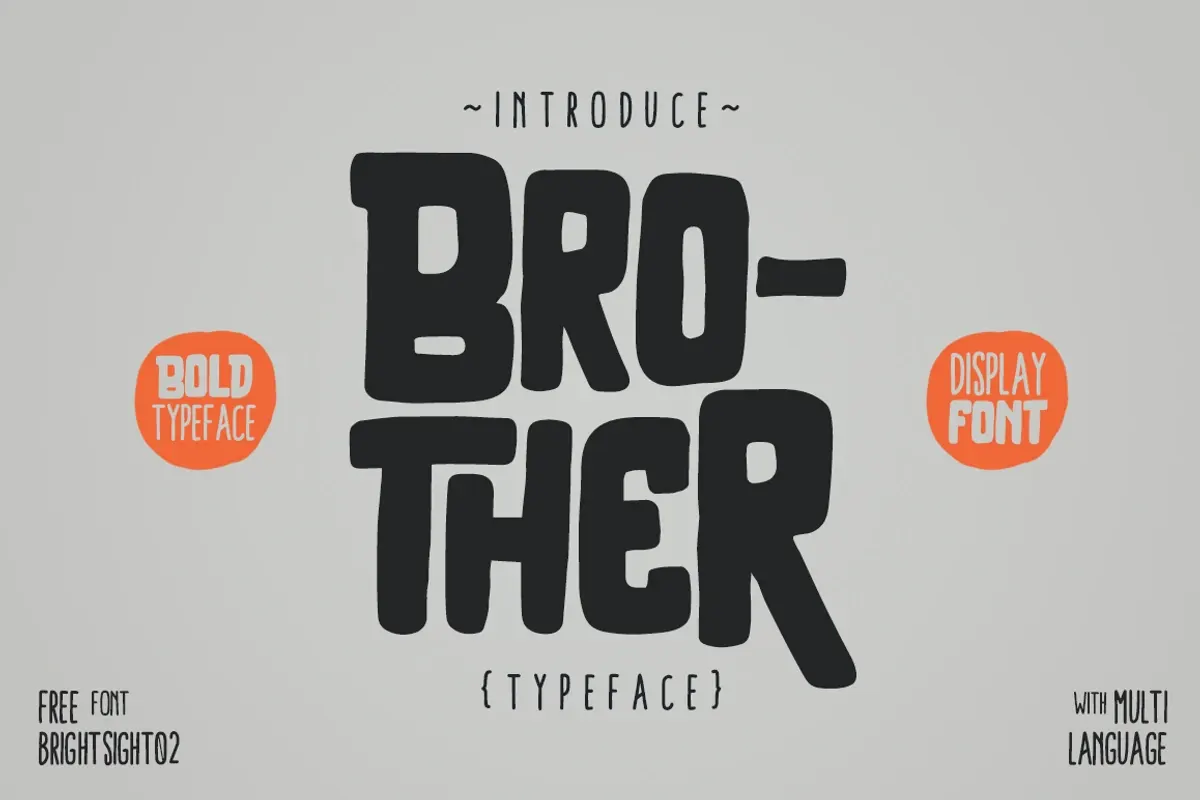
Brother Typeface Free Download
Brother Typeface Free Download is a bold and versatile font that offers a clean, modern look with a touch of character. Perfect for a variety of design projects, including logos, branding, headlines, and more, Brother stands out with its strong letterforms and excellent readability. Whether you're working on creative projects or professional designs, this font ensures your message is delivered with style and impact.